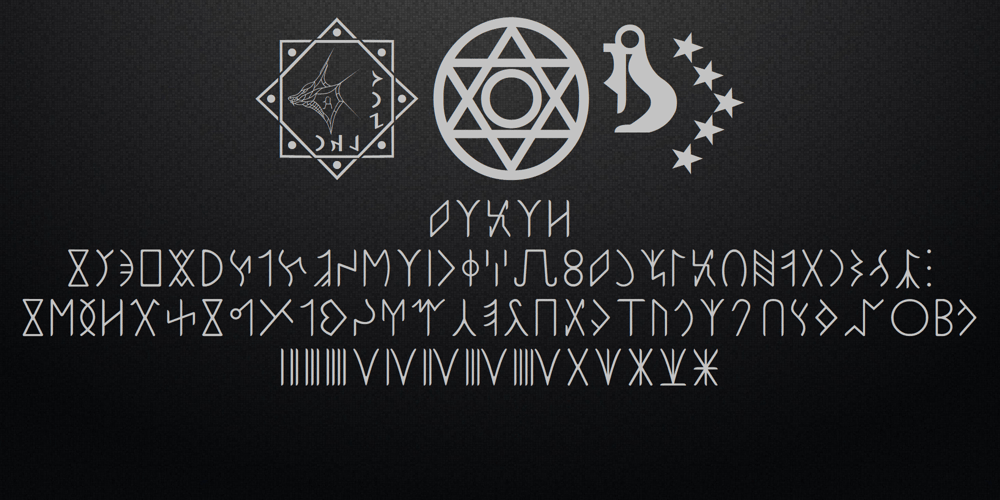
Ongunkan Khazar Rovas A
Ongunkan Khazar Rovas A font
Ongunkan Khazar Rovas A Font Family was designed by Osman Nuri ALKAN and published by Runic World Tamgacı. Ongunkan Khazar Rovas A contains 1 styles and family package options. Khazar, member of a confederation of Turkic-speaking tribes that in the late 6th century CE established a major commercial empire covering the southeastern section of modern European Russia. Although the origin of the term Khazar and the early history of the Khazar people are obscure, it is fairly certain that the Khazars were originally located in the northern Caucasus region and were part of the western Turkic empire (in Turkistan). The Khazars were in contact with the Persians in the mid-6th century CE, and they aided the Byzantine emperor Heraclius (reigned 610–641) in his campaign against the Persians.Although the Khazar Empire had a secular administrative structure, the administrative staff chose the Jewish religion. The Khazars are the only Turkish state that converted to Judaism.